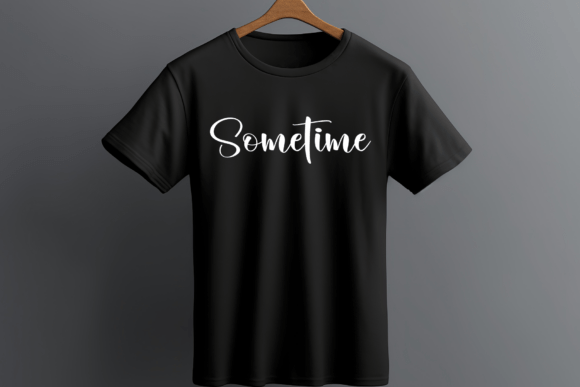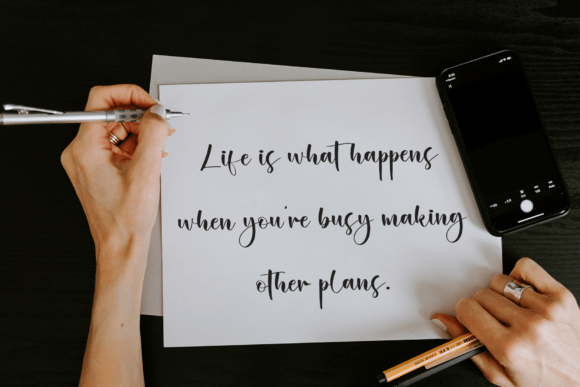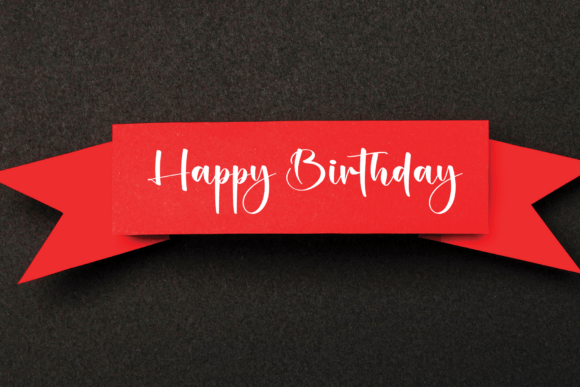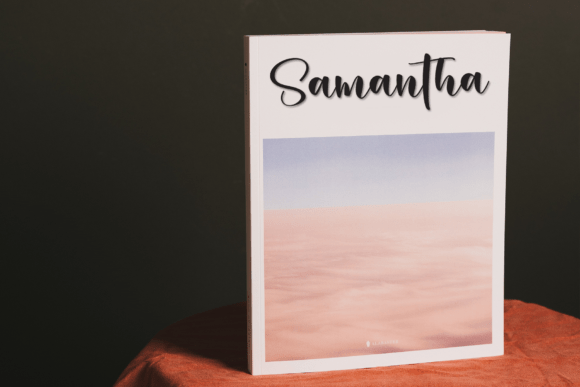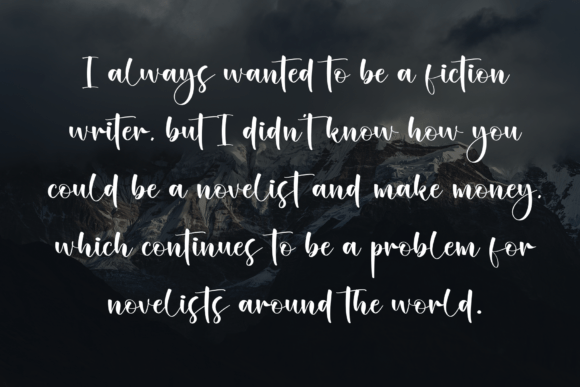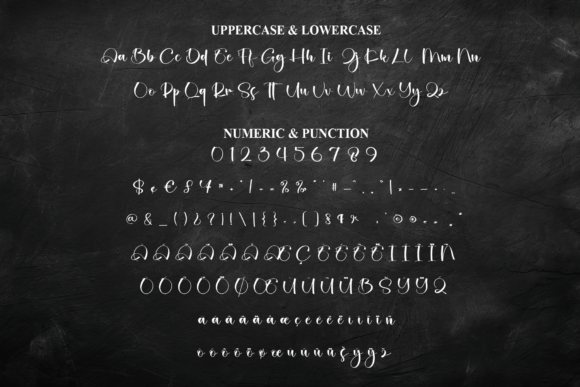
Introducing Blackboard Font: Elevate Your Designs with Elegance and Sophistication
In the world of typography, few fonts manage to strike a balance between elegance and modernity as effectively as Blackboard Font. This stylish script font is a masterpiece of contemporary design, boasting graceful strokes, fluid curves, and meticulously crafted letterforms that bring a touch of hand-drawn calligraphy to the digital age. Whether you’re a designer looking to elevate your branding, a crafter seeking the perfect font for your DIY projects, or simply someone who appreciates beautiful typography, Blackboard Font is sure to captivate and inspire.
The Essence of Blackboard Font
Blackboard Font is more than just a collection of letters; it’s an expression of artistry and refinement. Its design is characterized by a harmonious blend of classic calligraphic elements and modern sensibilities, making it an incredibly versatile font suitable for a wide range of applications. From logos and invitations to packaging and social media graphics, Blackboard Font adds a refined and sophisticated touch that can transform any design into a visually stunning piece of art.
Key Features of Blackboard Font
- Elegant Strokes and Curves: The font features smooth, flowing strokes and curves that give it a dynamic and lively feel, making it perfect for designs that require a bit of flair and personality.
- Hand-Drawn Calligraphy Inspiration: With its roots in traditional calligraphy, Blackboard Font brings a human touch to digital designs, setting it apart from more generic and mechanical fonts.
- Versatility: Its sophisticated yet approachable design makes it suitable for a variety of projects, from high-end branding and advertising to more personal and creative endeavors like crafting and DIY projects.
- Polished Details: Every letterform in Blackboard Font is carefully crafted to ensure that the font looks polished and professional, making it ideal for both digital and print applications.
Applications of Blackboard Font
The versatility of Blackboard Font is one of its most compelling attributes. Here are some of the many ways you can use this beautiful font to elevate your designs:
- Logo Design: Create a memorable and elegant logo that stands out with Blackboard Font, perfect for businesses in the creative, fashion, and food industries.
- Invitations and Stationery: Add a touch of sophistication to your invitations, greeting cards, and stationery with this beautifully crafted font.
- Packaging Design: Enhance your product packaging with Blackboard Font, giving your brand a luxurious and high-end feel.
- Social Media Graphics: Make your social media posts and stories stand out with the elegant and modern look of Blackboard Font, perfect for influencers, bloggers, and brands looking to boost their online presence.
Why Choose Blackboard Font?
In a sea of fonts, Blackboard Font stands out for its unique blend of elegance, versatility, and modern charm. Here are a few reasons why designers and crafters are drawn to this exceptional font:
- Unique Aesthetic: Blackboard Font offers a distinctive look that can help your designs stand out in a crowded marketplace.
- High Readability: Despite its elegant and cursive nature, Blackboard Font maintains high readability, making it suitable for both headings and body text.
Blackboard Font is a stylish script font that brings a perfect blend of elegance and contemporary charm to any design. Its graceful strokes, fluid curves, and carefully crafted letterforms make it an ideal choice for designers and crafters looking to add a refined and sophisticated touch to their projects. Whether you’re creating logos, invitations, packaging, or social media graphics, Blackboard Font delivers both versatility and visual appeal, making it a valuable addition to your typographic arsenal.
Embrace the beauty and versatility of Blackboard Font in your next design project and experience the difference that high-quality typography can make.